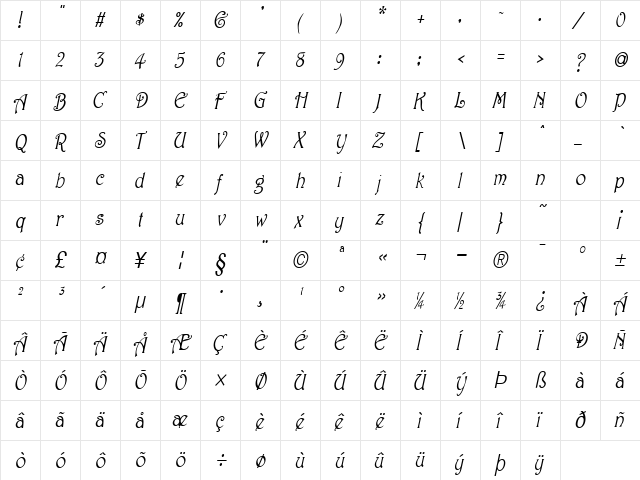
Parisian-Condensed Italic Font Preview
Design Context for Parisian-Condensed Typeface
Parisian-Condensed takes a measured approach to typography — its balanced proportions and neutral character make it a reliable workhorse for both digital and print work. The dynamic lean of this cut emphasises speed and emphasis in any layout. The condensed width makes it efficient for tight spaces without sacrificing legibility.
Pro Tip: Try Parisian-Condensed for annotation and caption copy alongside an upright companion — the contrast in angle creates a dynamic but ordered typographic system.